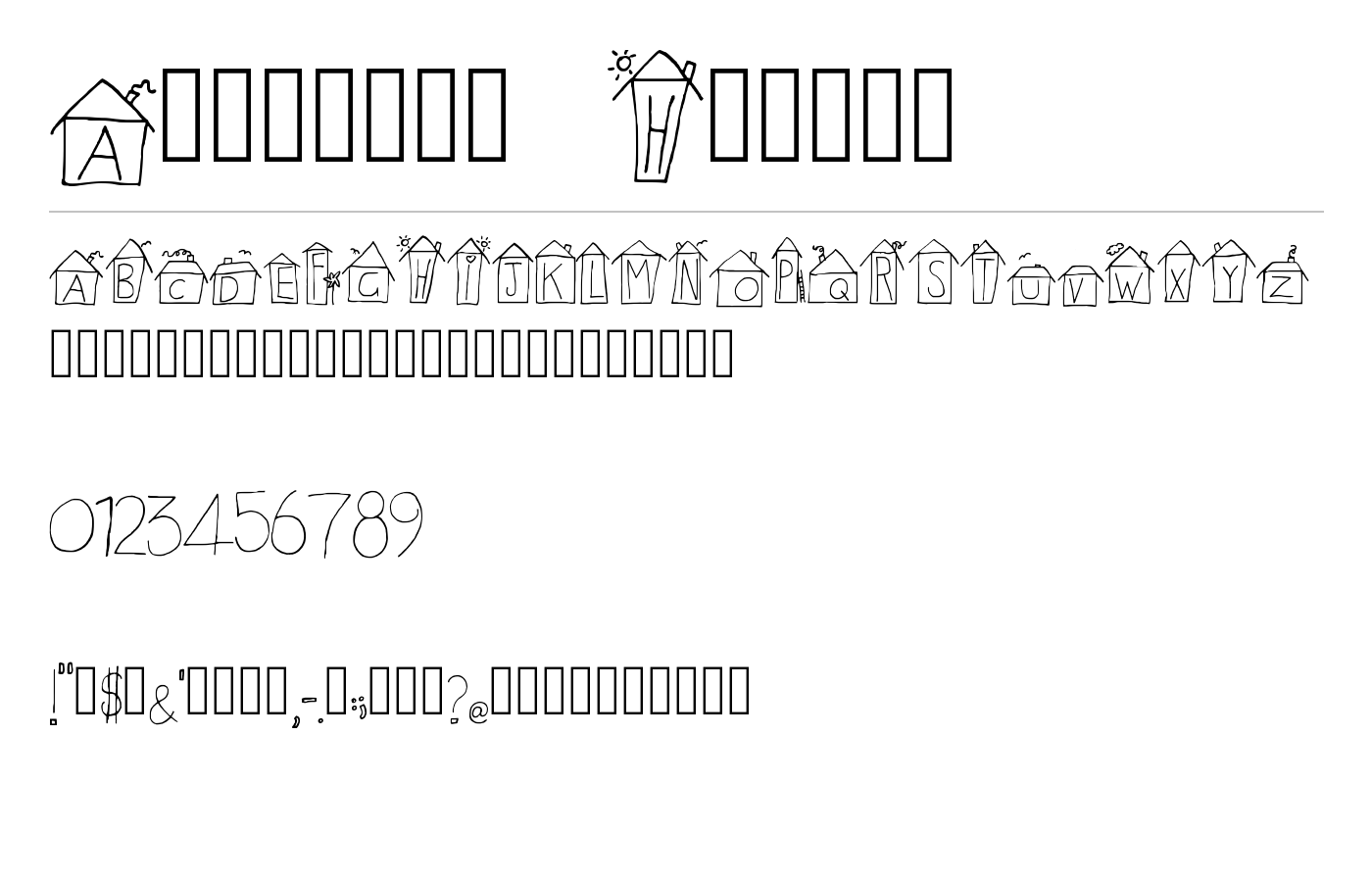
Alphabet Houses Font is a playful and whimsical display typeface featuring uppercase letters enclosed in charming, hand-drawn house shapes with unique roof styles and small decorative details. Its thin, irregular strokes and casual style make it perfect for creative projects like children's books, invitations, or imaginative branding that seeks a friendly and lighthearted feel. This font works best in large sizes for headlines or logos where its distinctive character can shine.
Alphabet Houses Font
About Alphabet Houses Font
| Designer | S. Evans |